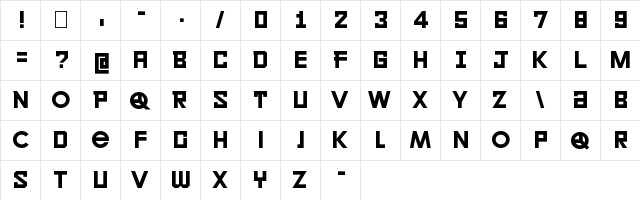
LECO 2014 Regular
Design Context for LECO 2014 Typeface
LECO 2014 takes a measured approach to typography — its balanced proportions and neutral character make it a reliable workhorse for both digital and print work.